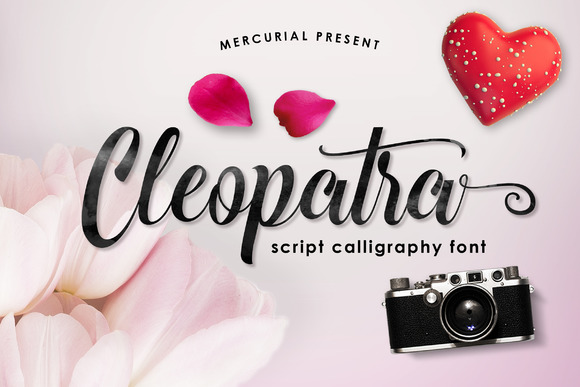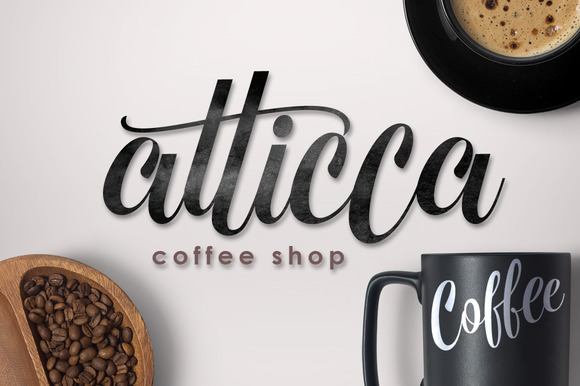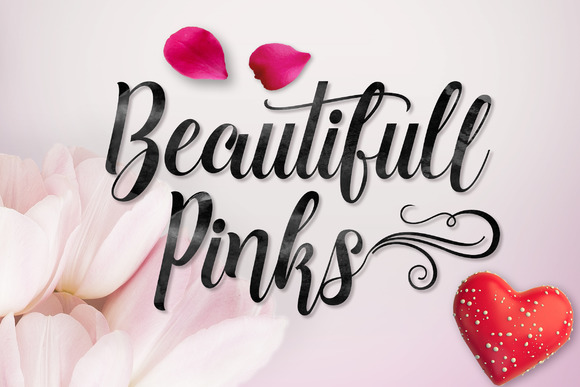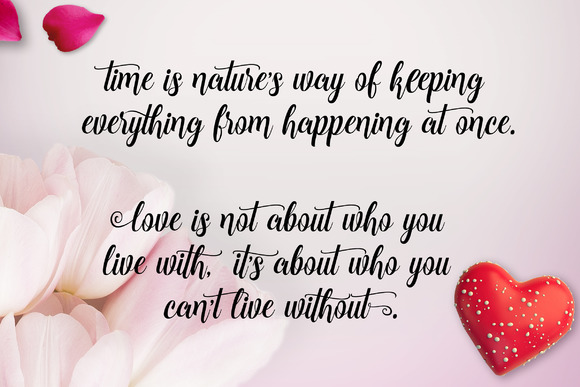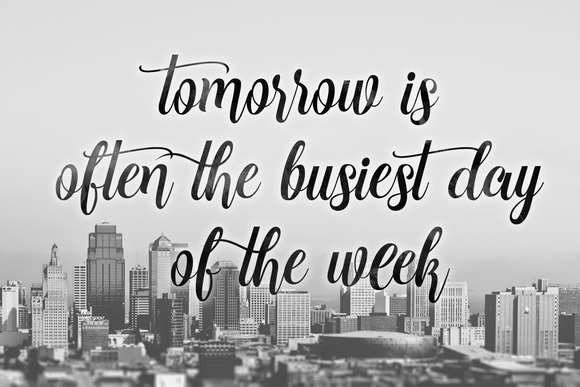
Cleopatra Font
Just Like Cleopatra: A Stunning Free Calligraphy Font to Elevate Your Designs
Calligraphy is the art of creating beautiful, decorative letters, and when it comes to modern design, finding the perfect calligraphy font can make all the difference. The new Free Elegant Calligraphy Font brings a touch of timeless beauty, just as captivating as Cleopatra herself. With smooth, flowing letters that exude grace, this font is a perfect blend of modern calligraphy and elegant design, offering the versatility you need for a wide range of projects.
Smooth and Elegant Lettering for All Projects
What sets this font apart from others is its smooth and refined lettering. The letters are crafted in a way that captures the fluidity of handwritten calligraphy, yet they retain the structure and clarity needed for digital designs. The lines are delicate but bold enough to ensure that every stroke stands out.
This modern calligraphy font will fit seamlessly into various design projects. Whether you’re creating a wedding invitation, a personal brand logo, or a heartfelt quote for a greeting card, its beauty will shine through in every letter. Its elegance adds a luxurious feel to any text, making your work stand out effortlessly.
Inspired by Cleopatra’s Timeless Beauty
Much like the legendary Cleopatra, this font embodies elegance and power. Cleopatra was not only known for her beauty but also her wisdom and grace. Similarly, this font brings a sophisticated allure to your designs, while maintaining a modern touch that reflects today’s design trends.
The careful balance between graceful curves and sharp clarity mirrors the duality of Cleopatra’s reign—delicate yet strong, beautiful yet commanding. This aesthetic is perfect for anyone looking to create designs that exude sophistication and authority.
A Versatile Font for Modern Calligraphy Projects
One of the best aspects of this free calligraphy font is its versatility. Its style is soft enough to be used on delicate, romantic projects like wedding stationery or greeting cards, but it’s also elegant enough for more professional projects like branding, website headers, or packaging.
Here are a few examples of how you can use this beautiful calligraphy font:
• Invitations: Whether it’s for weddings, birthdays, or events, this font adds a sophisticated touch that will impress your guests from the moment they receive your invite.
• Branding: Perfect for personal or luxury brands that want to convey a sense of elegance and class.
• Social Media Graphics: Use this font for inspirational quotes, Instagram posts, or Pinterest graphics that need a beautiful, eye-catching typeface.
• Packaging: Elevate your product packaging with lettering that communicates luxury and attention to detail.
• Signatures: Create custom digital signatures with a flair that stands out and leaves a lasting impression.
Bring Your Designs to the Next Level
If you’re looking to take your designs to the next level, this free font is exactly what you need. The clean, flowing lines will add a touch of sophistication to your projects, helping you create something truly memorable. It’s no surprise that modern calligraphy continues to be a favorite among designers. The font’s smooth, organic lines lend a natural feel, while its modern design ensures it will fit perfectly in today’s visual landscape.
Whether you’re a professional designer or just starting out, this font will give your projects a polished, high-end look. And since it’s free, you can try it out without worrying about the cost. Its elegance and versatility make it suitable for both digital and print projects.
Whether you’re working on personal projects like DIY stationery or client work that requires a touch of class, this font will help you achieve the perfect look.
Conclusion: A True Beauty for Your Next Project
Just like Cleopatra’s reign, this font commands attention with its beauty and elegance. It’s perfect for anyone looking to add a touch of refinement to their work. Whether you’re creating an invitation, a brand logo, or social media content, the smooth, elegant lettering of this modern calligraphy font will bring sophistication to every project.